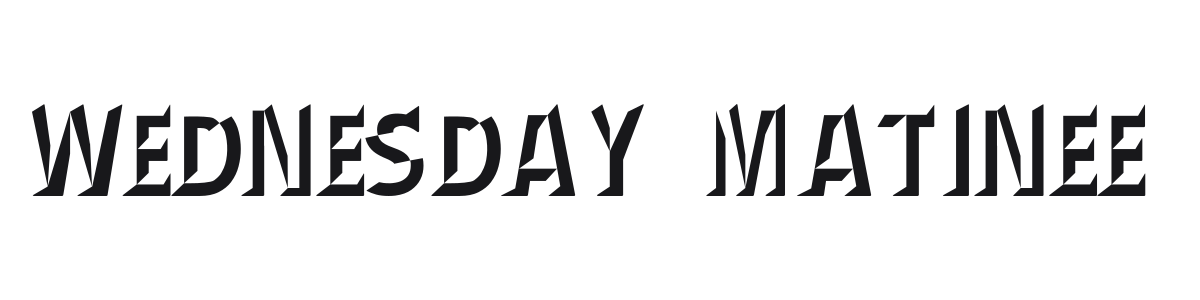
Wednesday Matinee
Wednesday Matinee is a bold, condensed stencil face from Brand Labs with uppercase-only letterforms that carry a distinctly military, utilitarian feel. The heavy strokes and characteristic stencil breaks give it the look of text sprayed onto crates or stamped on field equipment. Built for headlines, posters, and display use where you want something blunt and authoritative.